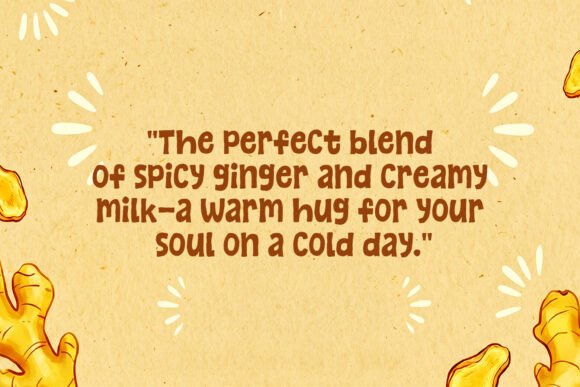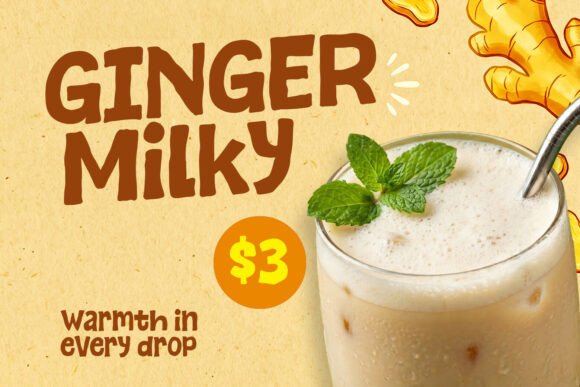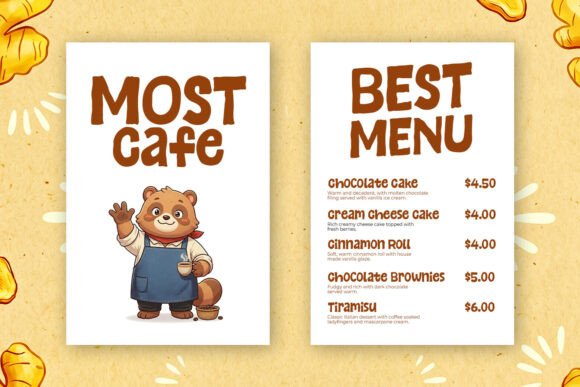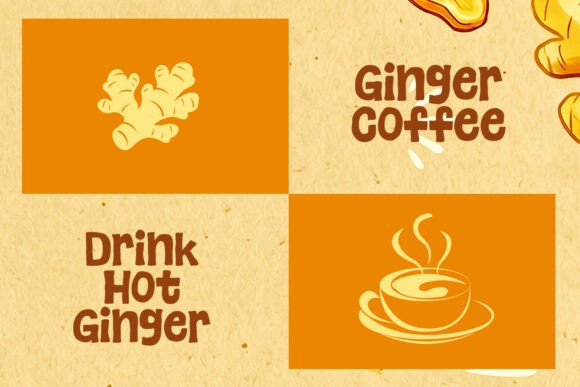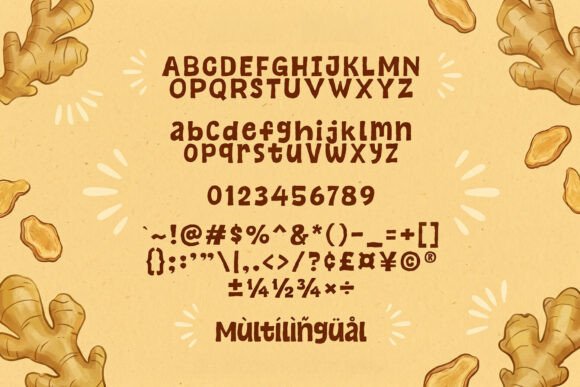
Ginger Times Font: Elevate Your Designs with a Modern and Cute Display Font
Are you a designer or crafter looking for a font that can add a touch of modernity and cuteness to your projects? Look no further than the Ginger Times Font! This versatile display font is perfect for a wide range of applications, from posters and logos to magazines, book covers, banners, and more. In this article, we’ll explore the features and benefits of the Ginger Times Font, and show you how it can help take your designs to the next level.
A Modern and Cute Display Font
The Ginger Times Font is a modern and cute display font that is sure to capture the attention of your audience. Its unique and playful design makes it perfect for projects that require a touch of whimsy and personality. Whether you’re creating a poster, logo, or book cover, this font is sure to add a dash of modernity and style.
One of the best things about the Ginger Times Font is its versatility. It’s perfect for a wide range of projects, including:
- Posters: Create eye-catching posters that grab attention with the Ginger Times Font.
- Logos: Use this font to create a unique and memorable logo for your brand.
- Magazines: Add a touch of modernity and style to your magazine layouts with this font.
- Book Covers: Create a stunning book cover that stands out from the crowd with the Ginger Times Font.
- Banners: Use this font to create attention-grabbing banners that get noticed.
Easy to Match with Other Fonts
Another benefit of the Ginger Times Font is that it’s easy to match with an incredibly large set of projects. Whether you’re working on a single project or a series of projects, this font is sure to complement your existing design elements. Its versatility and flexibility make it easy to pair with other fonts, colors, and graphics to create a cohesive and stylish design.
Add a Touch of Whimsy to Your Designs
The Ginger Times Font is perfect for designers and crafters who want to add a touch of whimsy and personality to their designs. Its playful and modern design makes it ideal for projects that require a dash of fun and creativity. Whether you’re creating a design for a children’s book, a craft project, or a marketing campaign, this font is sure to bring a smile to your audience’s face.
Why Choose the Ginger Times Font?
So why choose the Ginger Times Font for your next project? Here are just a few reasons:
- Unique and playful design
- Perfect for a wide range of projects
- Easily matches with other fonts and design elements
- Modern and cute aesthetic
In conclusion, the Ginger Times Font is a must-have for designers and crafters who want to add a touch of modernity and cuteness to their projects. Its unique and playful design, versatility, and ease of use make it perfect for a wide range of applications. So get creative, have fun, and make your designs stand out with the Ginger Times Font!